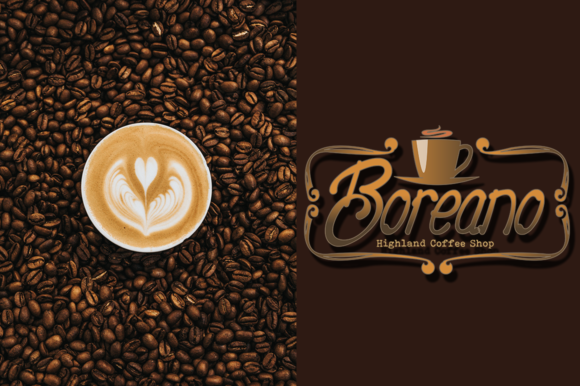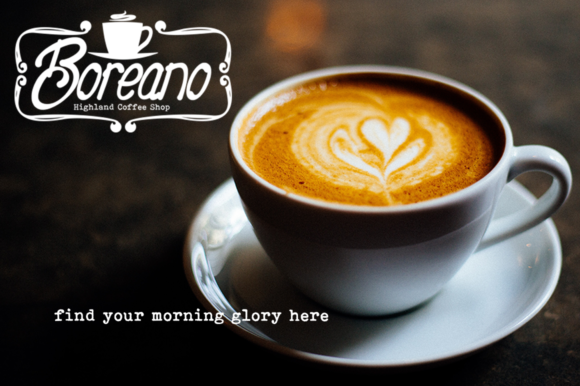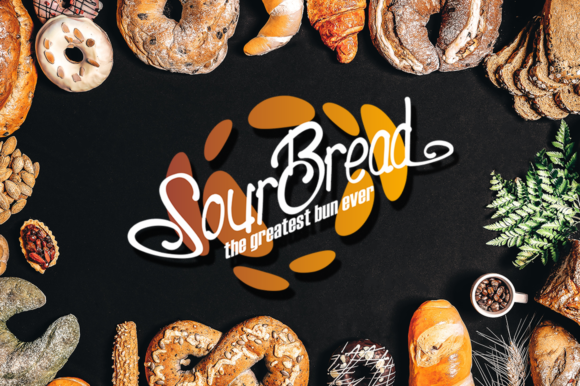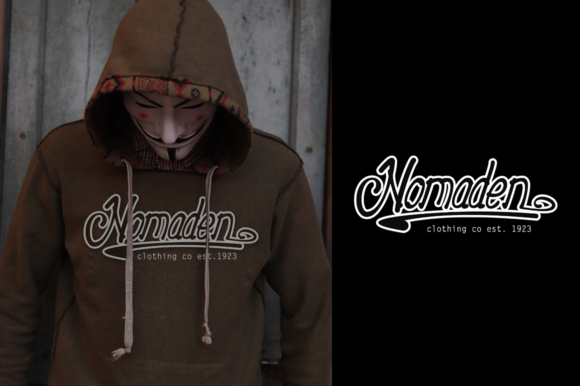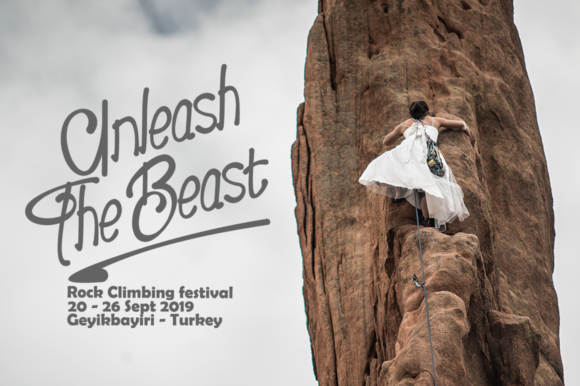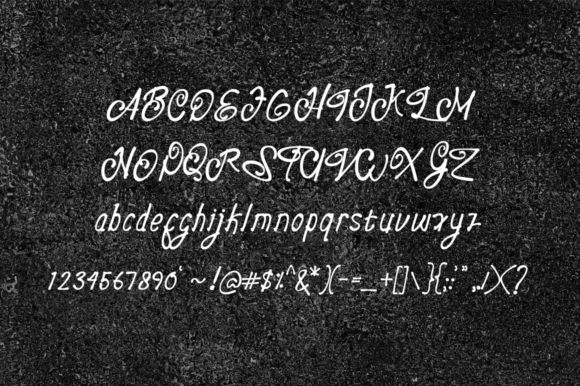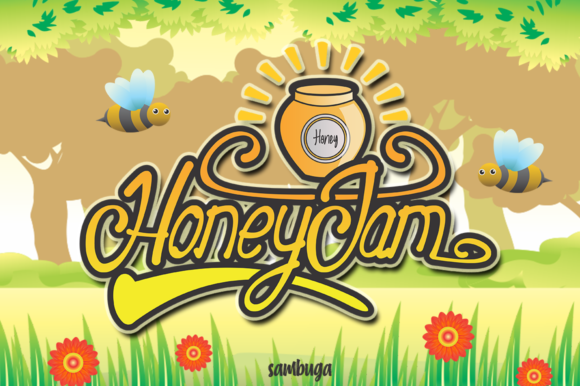
Discovering the Sweet Spot: Honey Jam Font
Have you ever been stuck on a design project, searching for that perfect font to capture the essence of your creative vision? I know I have. The struggle is real, especially when you’re trying to convey a carefree, natural vibe. That’s exactly where the Honey Jam Font comes in – a sweet and cool display font that embodies the feeling of a sunny day in the great outdoors.
Developed to add a touch of warmth and personality to your designs, the Honey Jam Font is perfect for designers looking to create visually appealing and engaging content. Whether you’re working on a branding project, a social media campaign, or a digital product, this font is sure to bring a smile to your audience’s faces.
Honey Jam Font Key Features
• Unique Characteristics: Honey Jam Font features a unique blend of modern and vintage elements, with a distinctive rounded shape and subtle texture.
• Font Styles: The font family includes 6 styles: Light, Regular, Medium, Bold, Heavy, and Outline, providing flexibility for various design applications.
Honey Jam Font Review
I recently had the chance to work with the Honey Jam Font, and I must say it’s a unique and charming addition to any design project. ✨ The font’s playful, handwritten style instantly adds a touch of warmth and personality to any text. I particularly enjoyed using it for headings and titles, as it really grabs the reader’s attention.
• The Honey Jam Font is highly customizable, allowing designers to adjust the weight, size, and spacing to suit their specific needs.
• Its versatility makes it suitable for a wide range of applications, from food and beverage branding to fashion and lifestyle design.
• The font’s organic, hand-drawn feel gives it a unique character that sets it apart from more generic sans-serif fonts.
While the Honey Jam Font is certainly a standout, I do have a few reservations. ⚠️ For one, the font can be a bit overwhelming if used in large quantities. I found that it works best when used sparingly, as a accent or emphasis font rather than a primary font.
Overall, I’m really impressed with the Honey Jam Font. It’s a great addition to any designer’s toolkit, and I’m excited to see how it will be used in future projects. With a little restraint, this font has the potential to add a lot of personality and charm to any design.
Honey Jam Font Practical Application Guide
Tips for Getting the Most Out of Honey Jam Font
Use Honey Jam Font for titles, headings, and quotes to add a touch of elegance to your designs.
Use it in conjunction with other fonts to create a unique and eye-catching visual identity.
Experiment with different font sizes and styles to add depth and interest to your designs.
Honey Jam Font is perfect for:
– Branding and marketing materials
– Blog and website headers and footers
Alternatives to Honey Jam Font
Great Vibes is a modern, cursive script font perfect for creating a relaxed and friendly atmosphere. It’s ideal for use in branding, packaging, and advertising materials where a touch of elegance is needed. Great Vibes has a more elegant feel compared to Honey Jam Font, which has a more playful and casual tone.
Alex Brush is a beautiful, hand-drawn script font suitable for a wide range of applications, from wedding invitations to product labels. Its flowing lines and subtle flair make it an excellent choice for creating a sense of sophistication and refinement. Compared to Honey Jam Font, Alex Brush has a more refined and elegant feel, making it ideal for formal or high-end projects.
Pacifico is a stylish, sans-serif font with a relaxed and laid-back vibe. It’s perfect for use in branding, packaging, and advertising materials where a modern and trendy feel is desired. Pacifico has a more straightforward and modern feel compared to Honey Jam Font, which has a more playful and whimsical tone.
Q: Can I customize Honey Jam Font for my specific project?